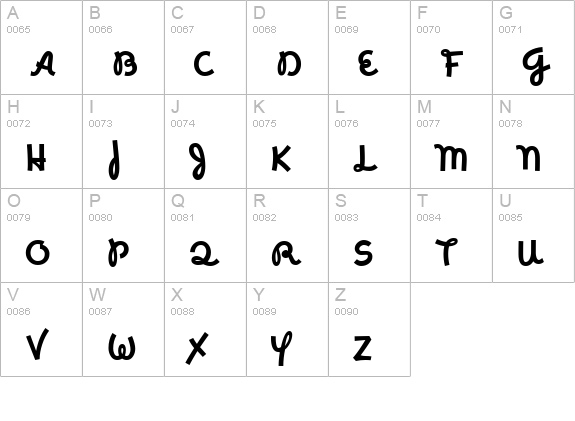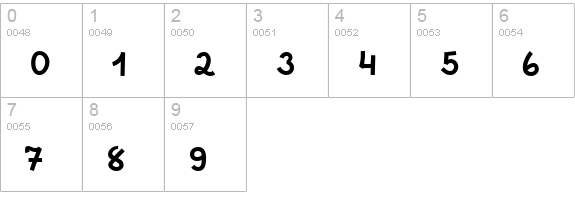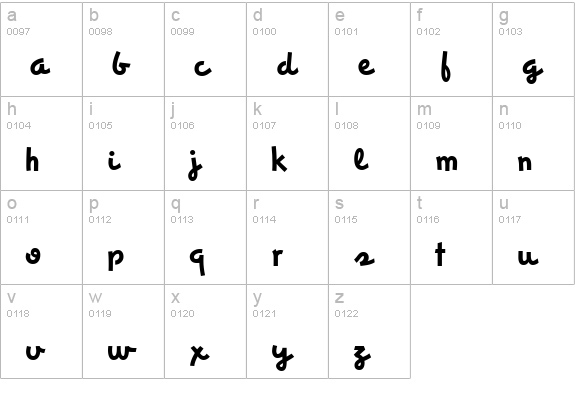
Espangles Font Details
Introducing Espangles, a dazzling and elegant font that exudes sophistication and charm. With its delicate curves and intricate details, Espangles is perfect for adding a touch of glamour to any design project. Whether you're creating invitations, logos, or social media graphics, this font is sure to make a statement. What's even better is that Espangles is available for free download at FontsMarket.com. That's right, you can add this stunning font to your collection without spending a dime. Don't miss out on the opportunity to elevate your designs with the beauty and versatility of Espangles. Download it today and let your creativity shine!